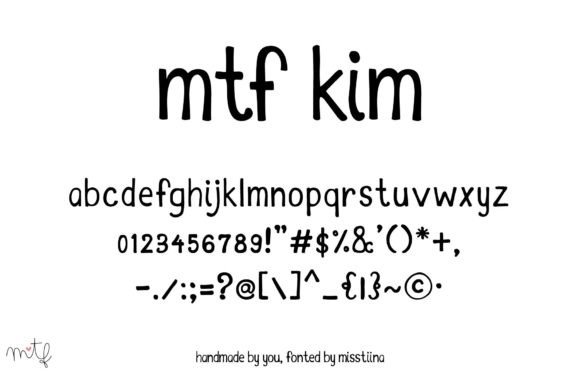
**Introducing Kim Font: The Key to Unlocking Your Creative Potential**
Prepare to be captivated by Kim Font, a captivating display font crafted with meticulous detail by the talented Miss Tiina. This remarkable font is a symphony of elegance and playfulness, ready to elevate your designs to new heights.
**Embrace the Allure of Ancient Greece**
Immerse yourself in the timeless beauty of ancient Greece with Kim Font. Its enchanting characters evoke the grandeur of marble statues and the wisdom of philosophers. Whether you're crafting invitations, designing posters, or creating logos, Kim Font will effortlessly infuse your work with an aura of sophistication and charm.
**Versatility That Knows No Bounds**
Unleash your creativity with Kim Font's boundless versatility. Its playful nature lends itself perfectly to playful branding projects, while its refined elegance adds a touch of sophistication to business documents. From digital journals to book writing, Kim Font effortlessly adapts to suit your every need.
**Experience the Joy of Self-Expression**
With Kim Font, self-expression has never been easier. Let your imagination soar as you experiment with different combinations of uppercase and lowercase letters. Create eye-catching headlines, design whimsical invitations, or craft heartfelt letters - the possibilities are endless.
**A Timeless Treasure for Your Design Arsenal**